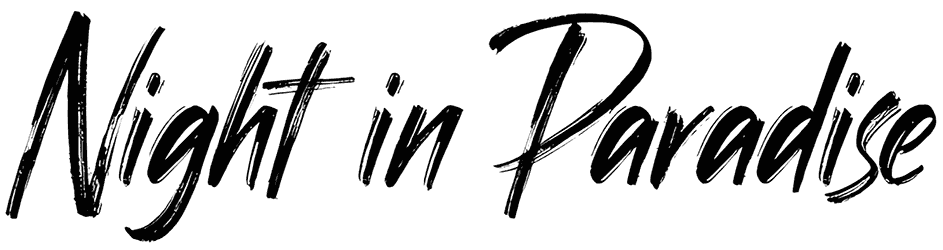
Night in Paradise Font
Night in Paradise is the most attractive font for graphic artists who are looking for a modern and attractive combination font.
This font is a very successful combination of handwritten and brush fonts that can give your writing an informal and scary look to some extent. For this reason, it is suitable for writing texts printed on T-shirts or clothing packaging, or designing posters for horror and action movies and books.